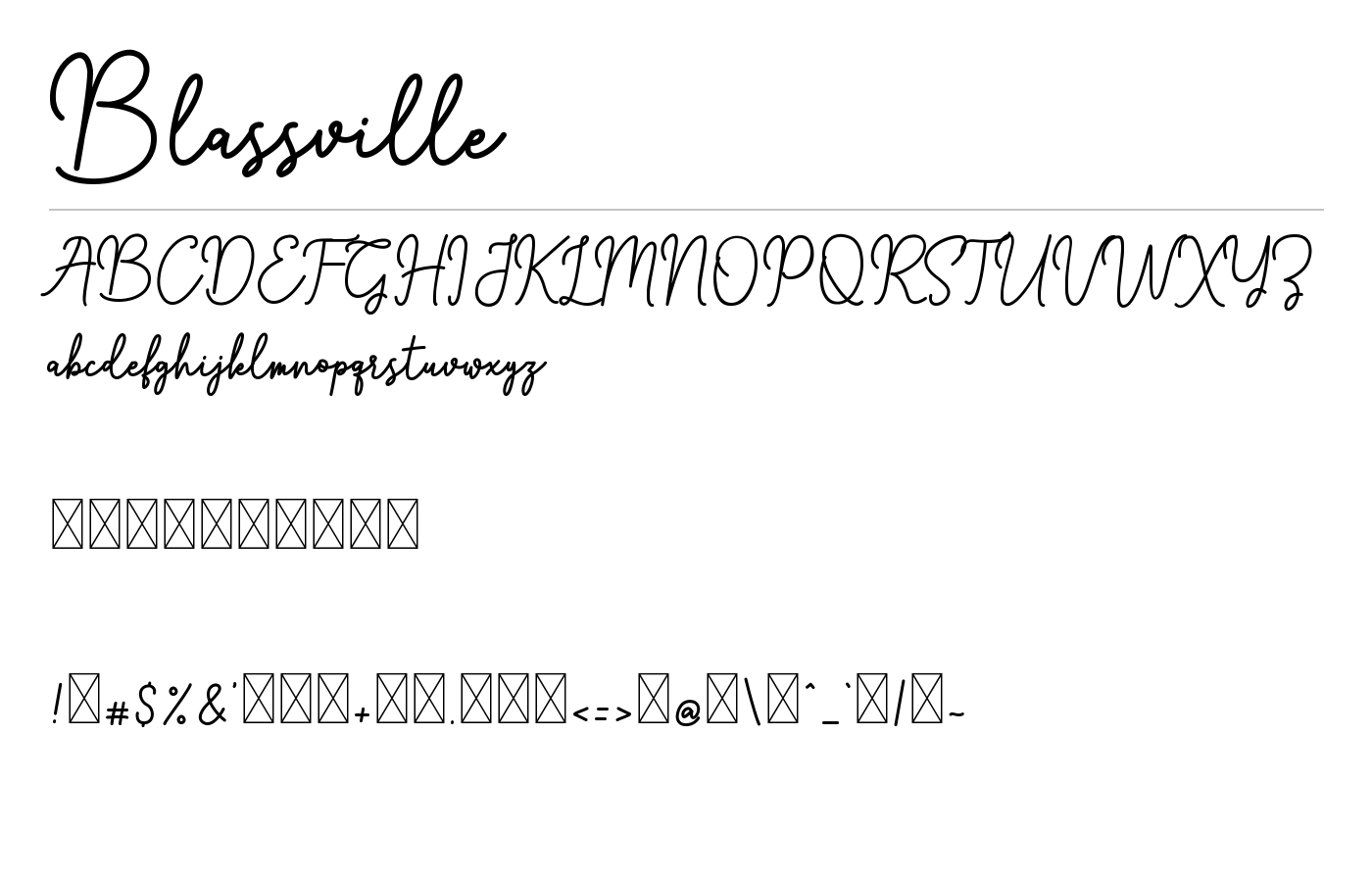
Blassville is a delicate script font with a hand-drawn feel, featuring slender, smooth strokes and elegant curves that create a graceful and inviting look. Its light weight and flowing connected letters make it perfect for feminine, romantic, and creative brands, lending a personal and refined touch to invitations, logos, and editorial designs. This font works best in settings where a stylish, handwritten aesthetic is desired to evoke warmth and charm.
Blassville Font